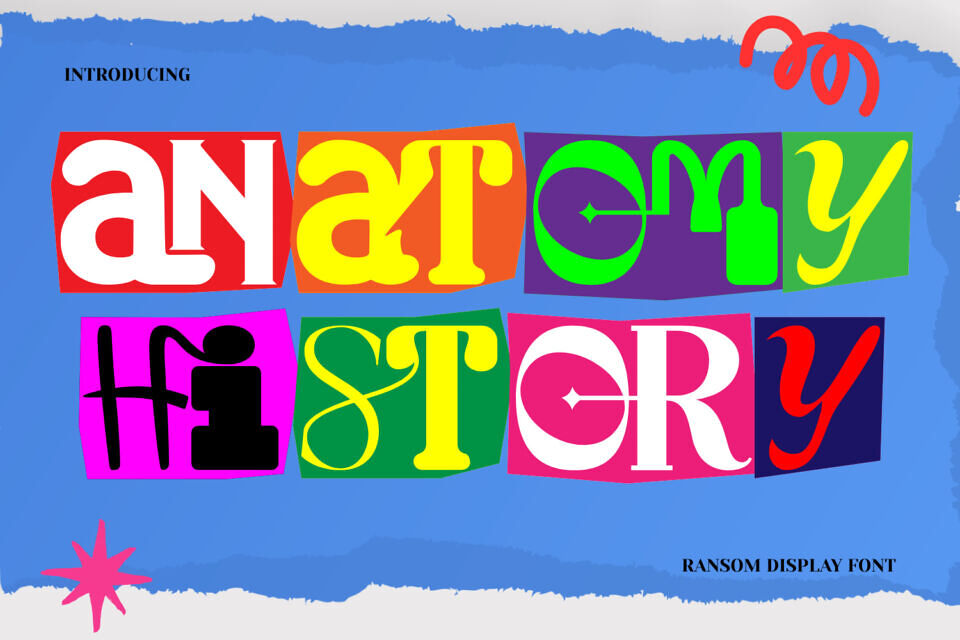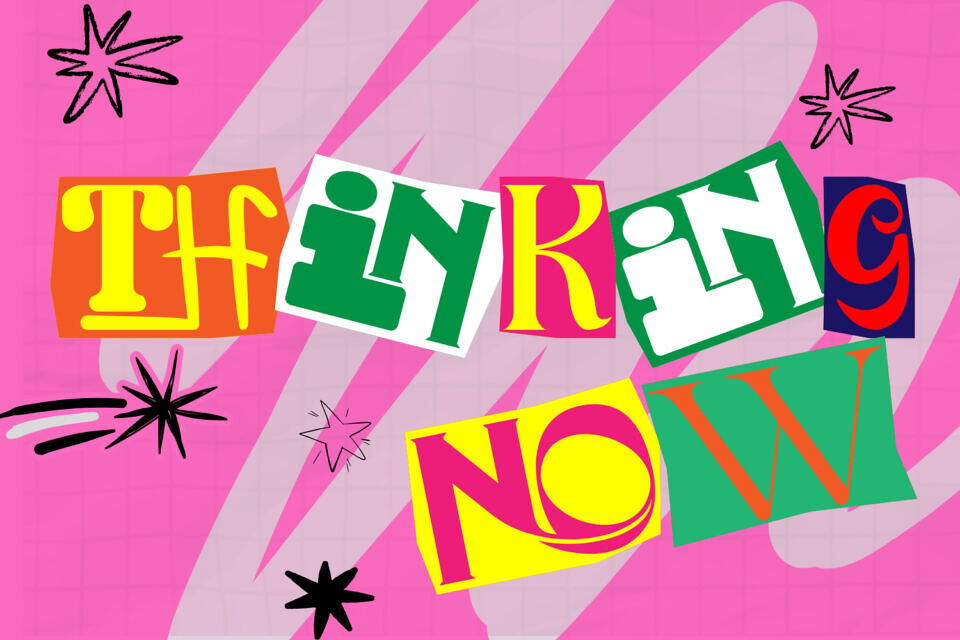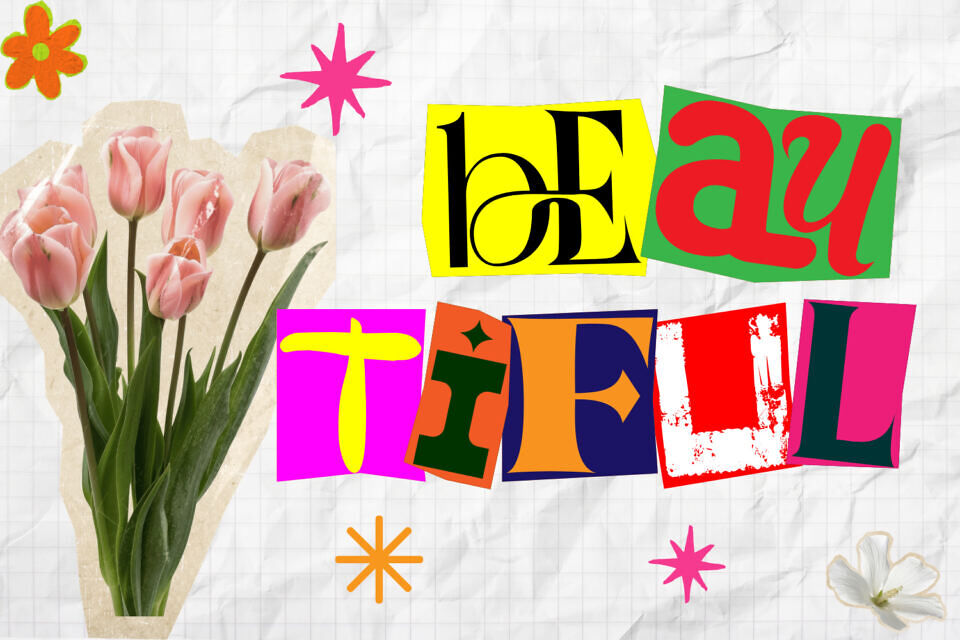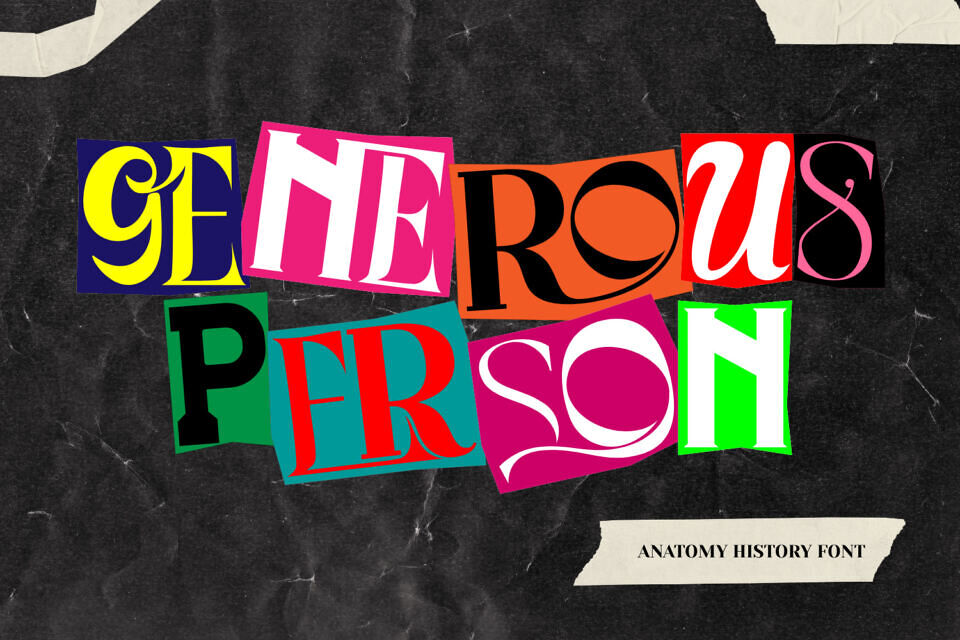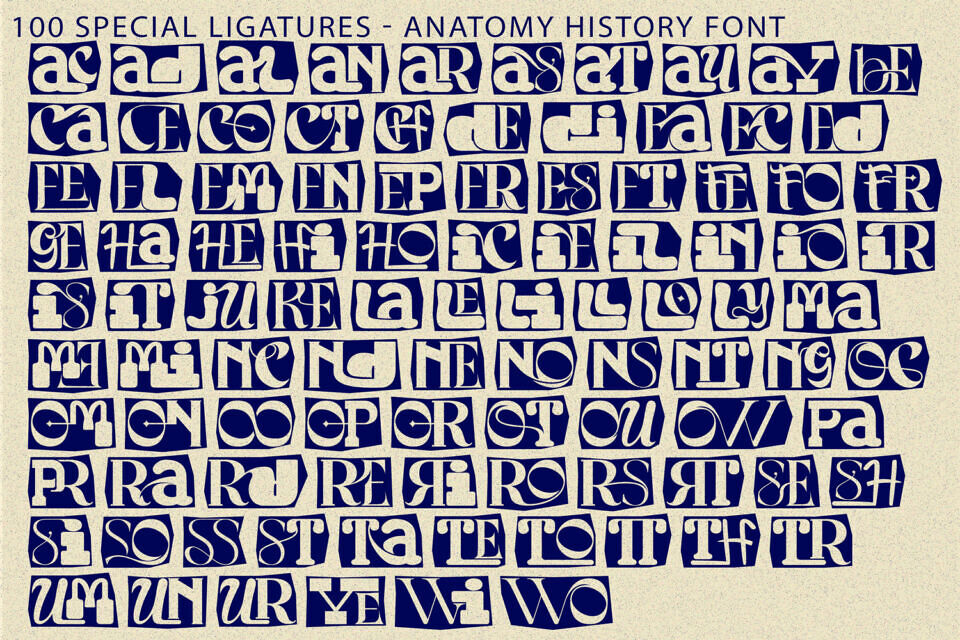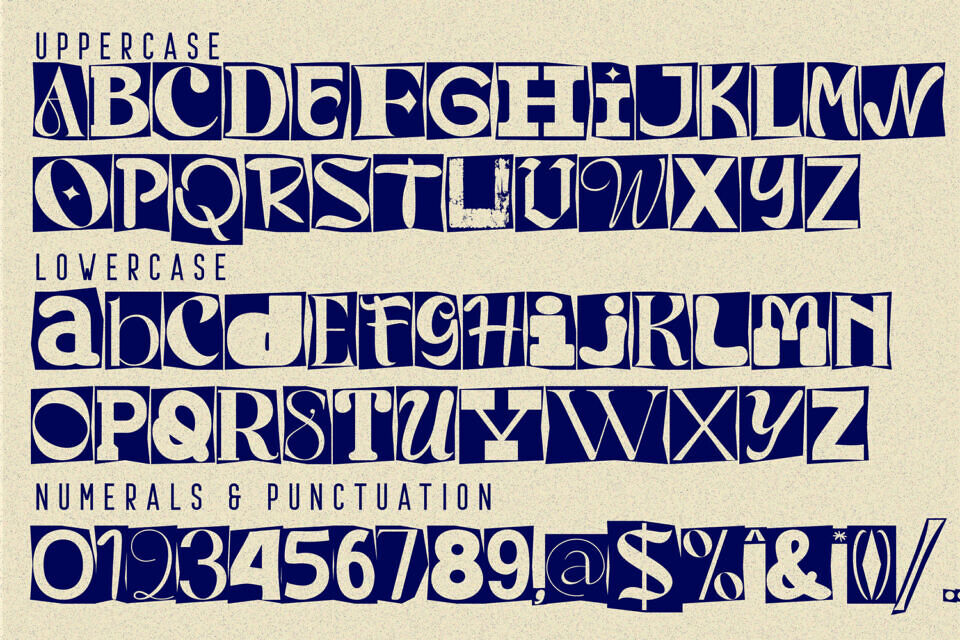
Anatomy History is a playful cutout collage display font inspired by retro paper art, ransom-note typography, and bold editorial design. Each letter feels like a unique paper piece, combining expressive shapes, vibrant personality, and handcrafted charm.
With its mixed letter styles and irregular cut-paper look, Anatomy History brings energy, humor, and visual surprise to every composition. It is perfect for posters, album covers, magazine headlines, social media graphics, kids’ projects, packaging, and creative branding.